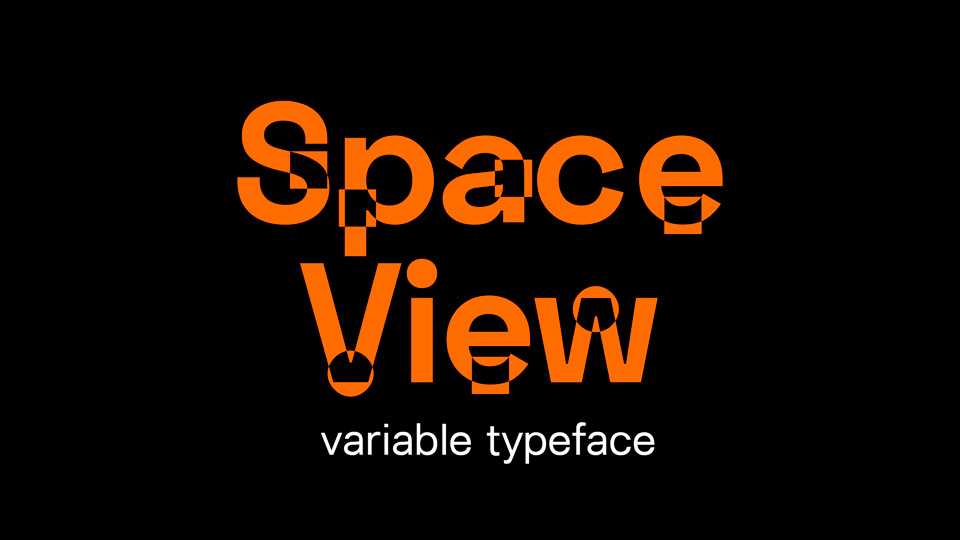
Download Space View font, a grotesk typeface with blocks and circle to “view” inside and make a space in each letter. It comes with 5 weights from Regular to Black.
Designer: Alberto Guerra